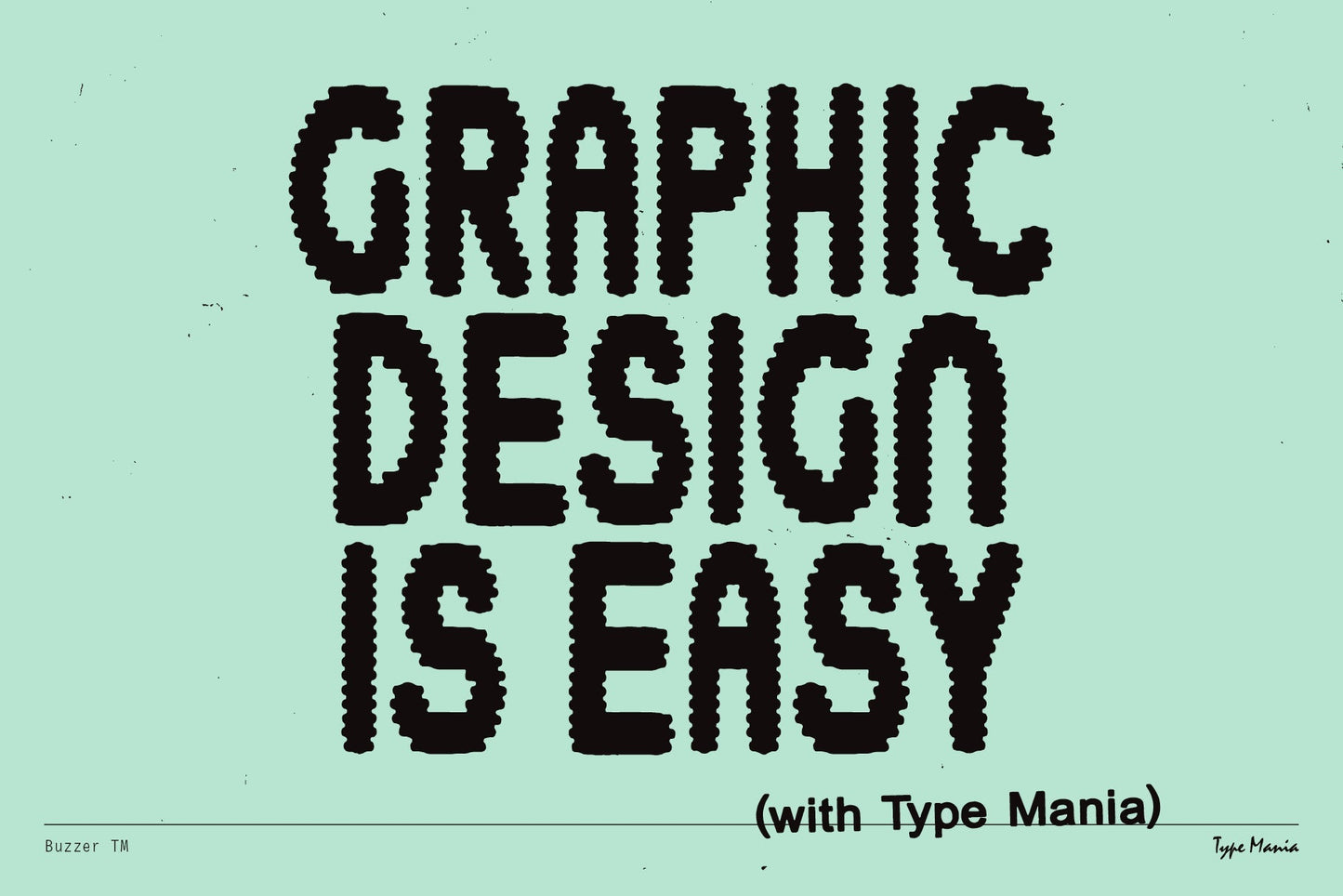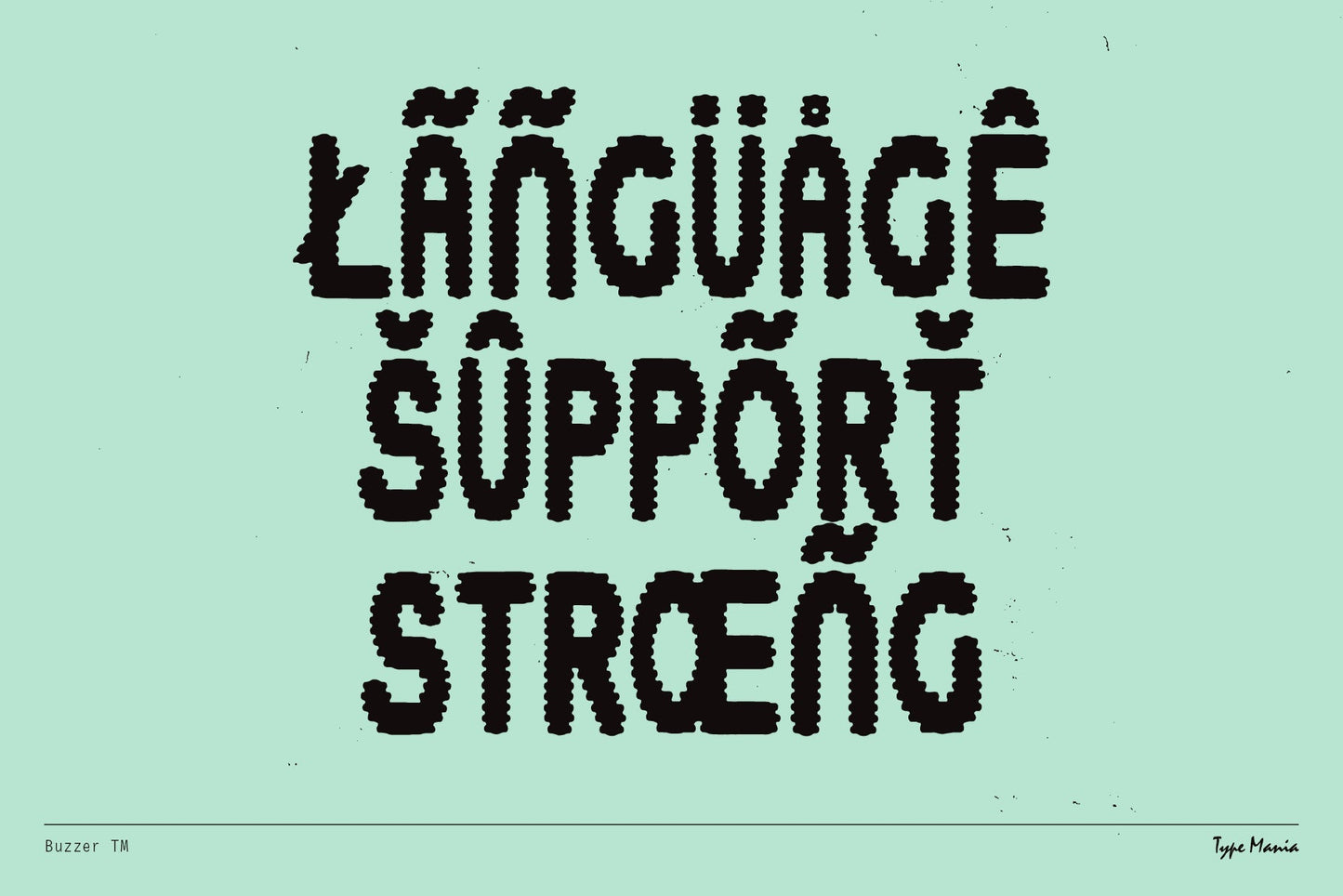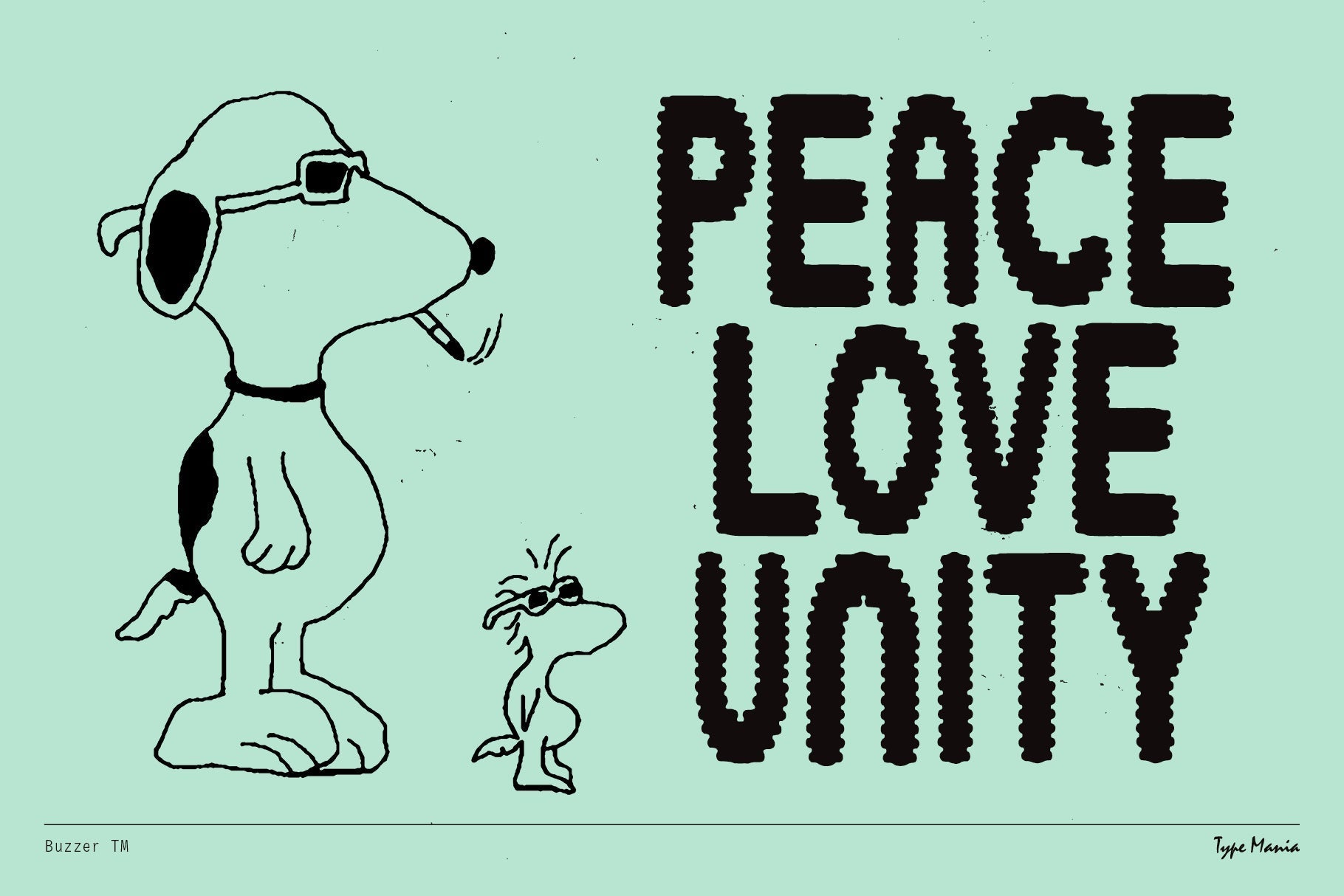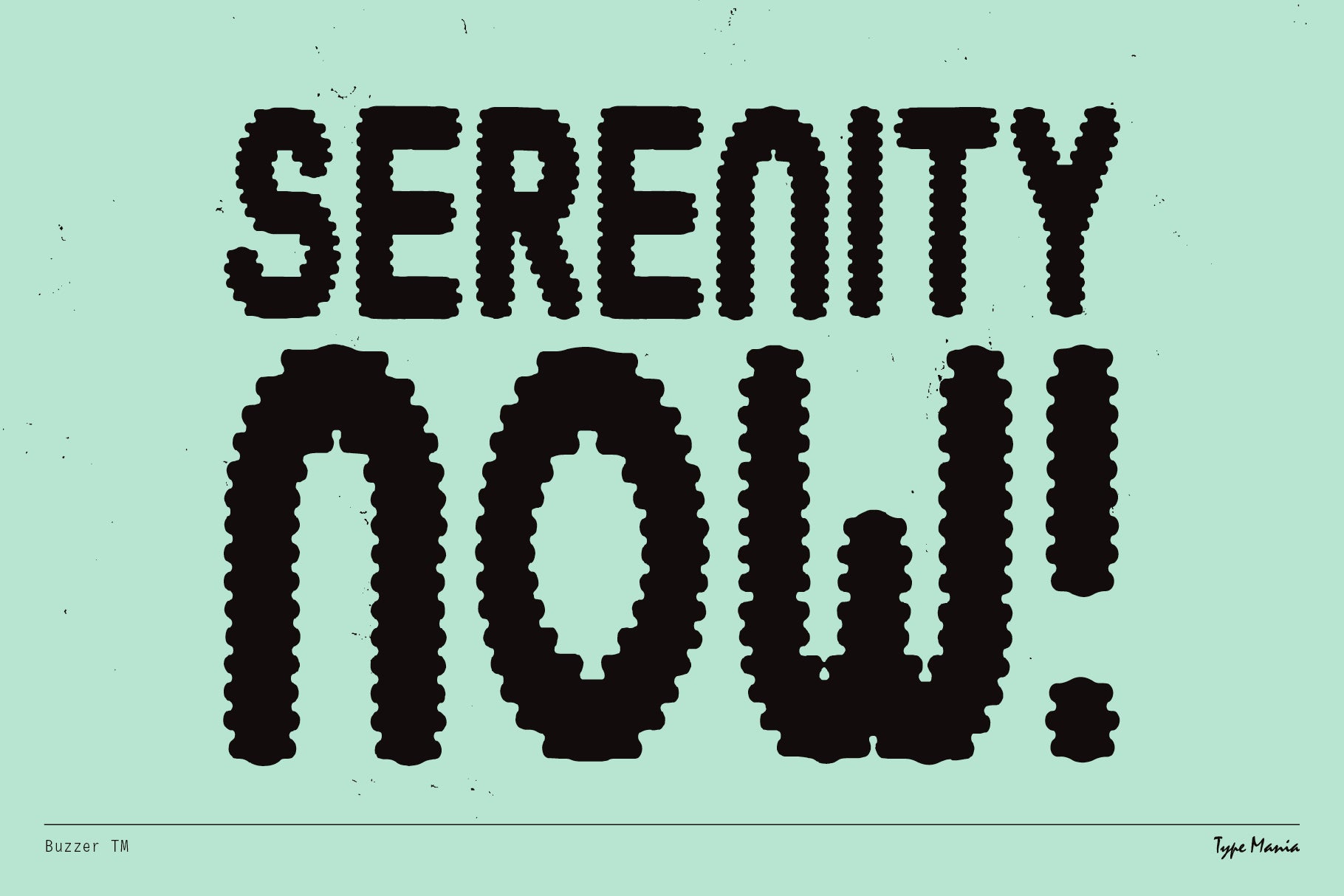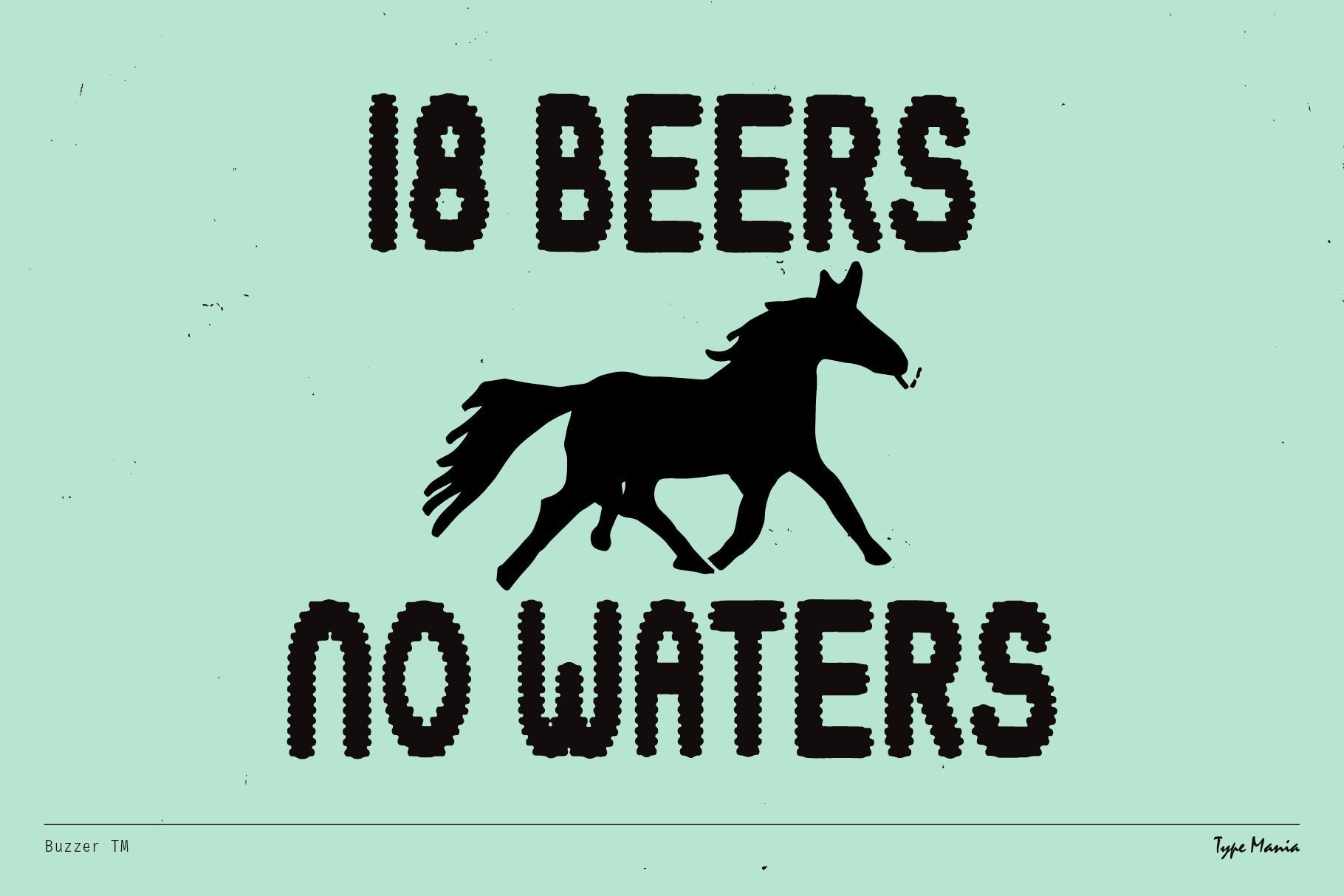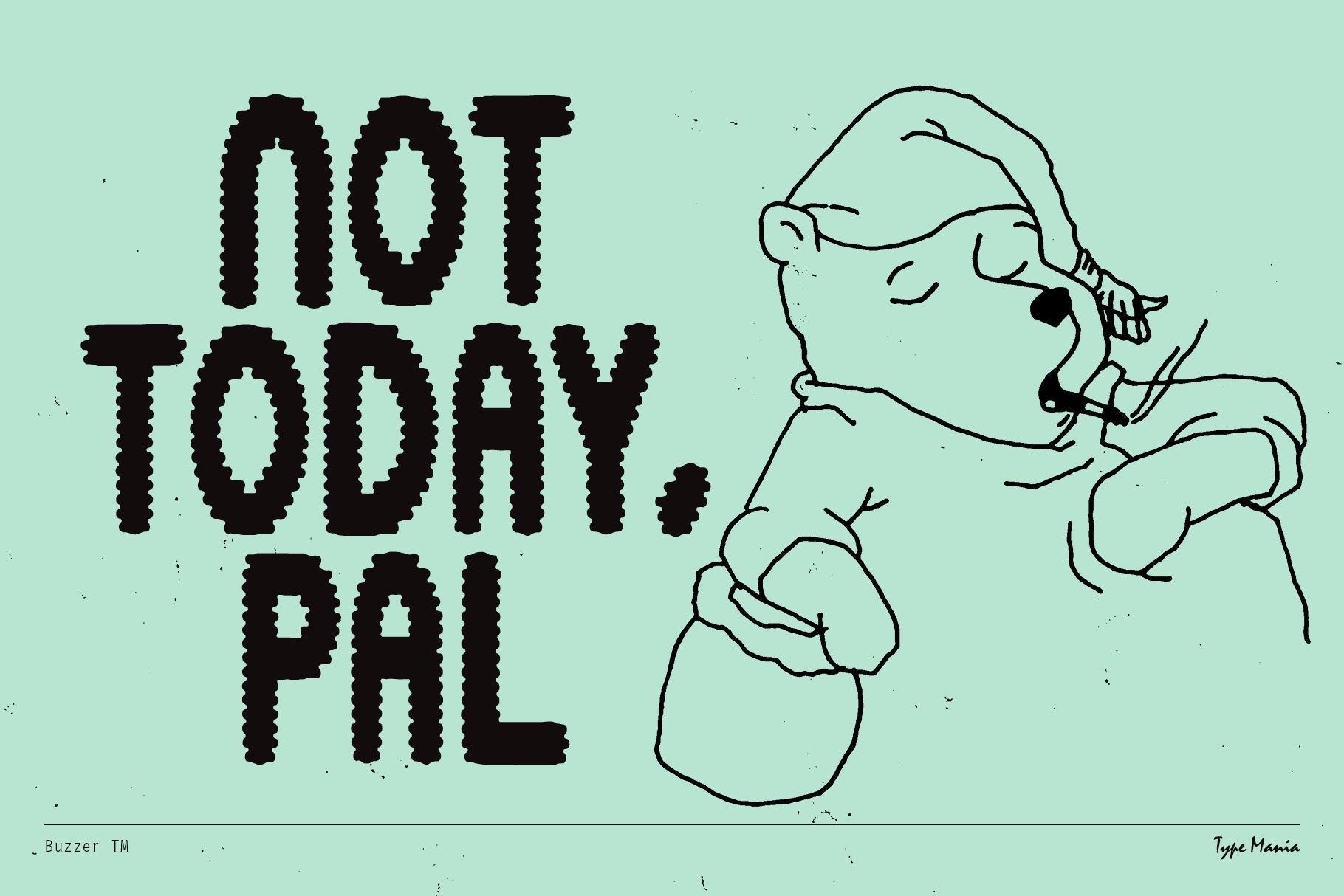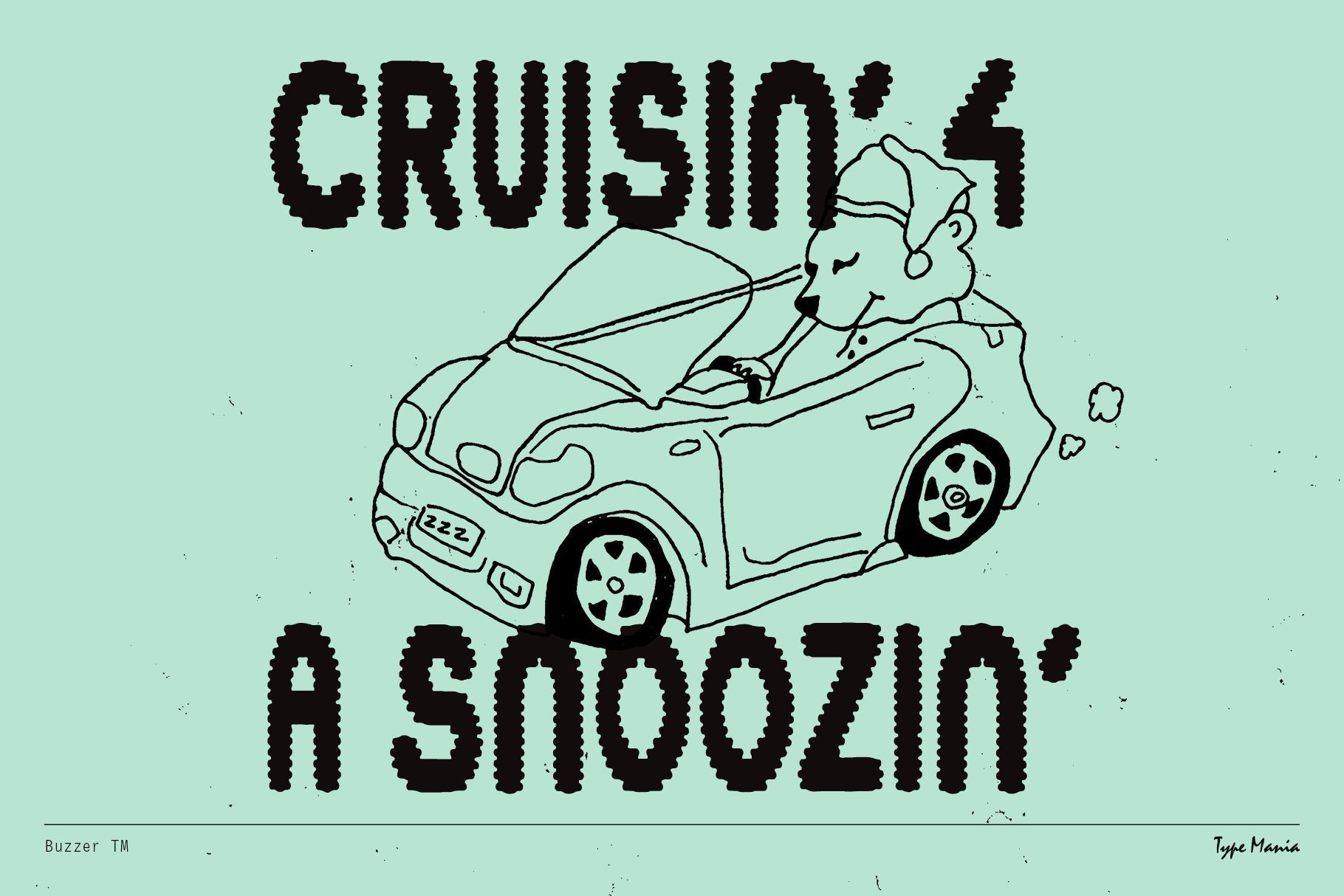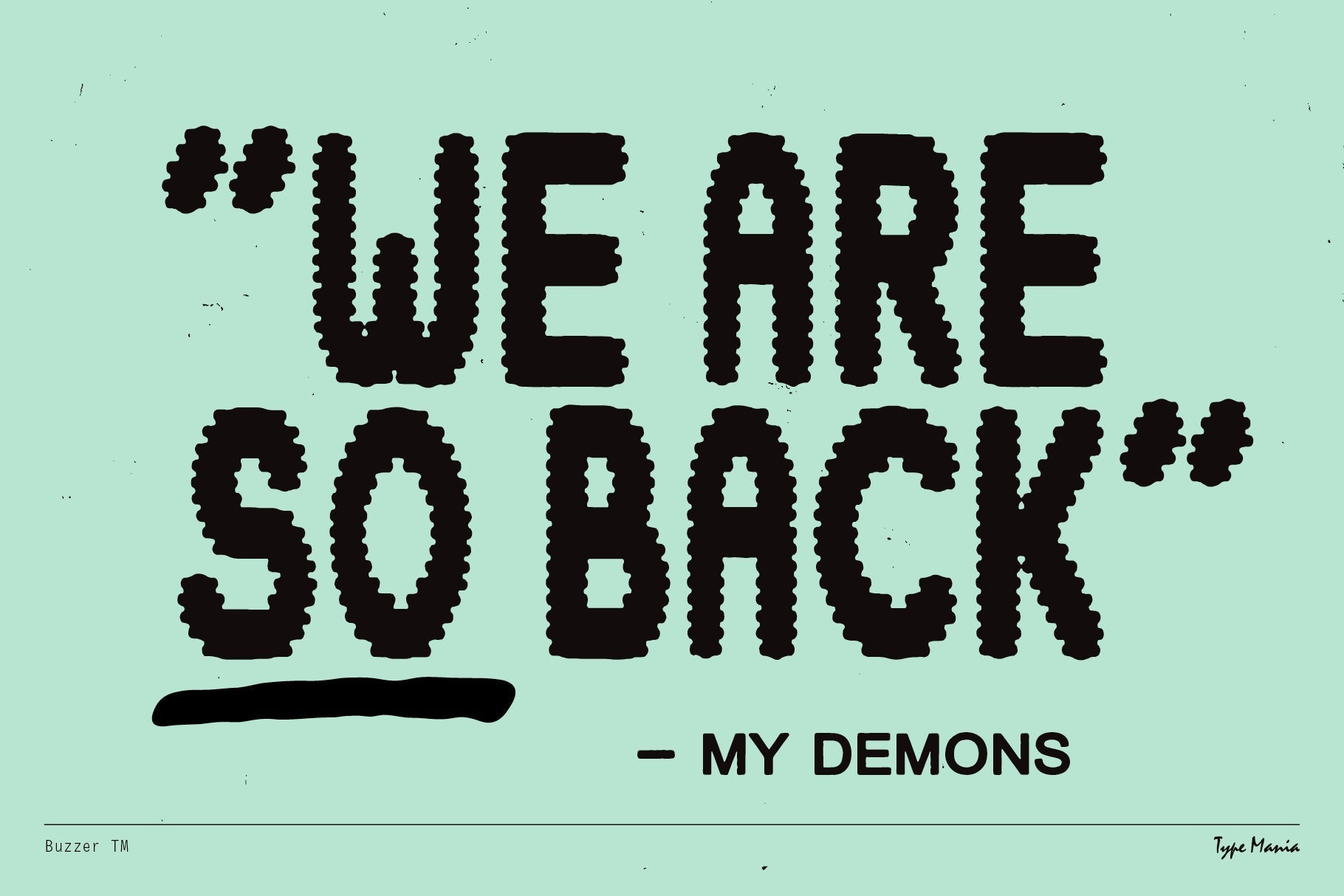
Buzzer TM
What's buzzin', cousin... Check out Buzzer TM, our jazzy sans serif that's guaranteed to electrify your text with energy and excitement ⚡😵💫 Good for flyers, posters; all kinds of attention-demanding gigs, really :))